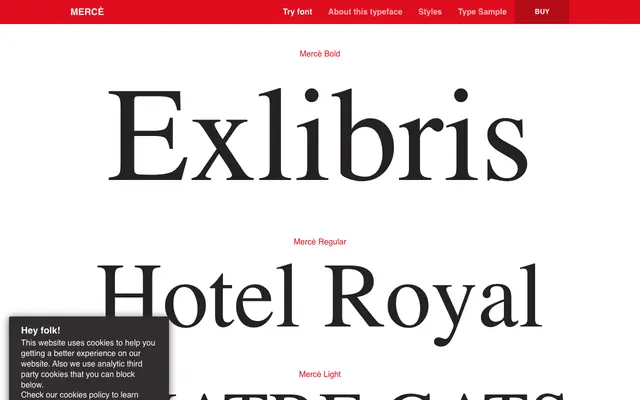
Mercè
Typerepublic · Ricard Garcia · 2023
A revival of Louis Hoell's 1914 Tages-Antiqua, reworked by Ricard Garcia with greater elegance and contrast while preserving its Art Nouveau proportions.
Originally cut for the Flinsch foundry in Offenbach am Main, Tages-Antiqua circulated in Barcelona as Antigua Mercedes and was rooted in the mainstream Art Nouveau styles of early 20th-century Europe. Garcia's revival retains the wide characters and uneven vertical proportions of Hoell's design while introducing a more contrasted, transitional feel across five weights from Light to Black. The family supports an extensive range of Latin-based languages and includes OpenType features such as historical forms, ordinals and slashed zero.
A revival of Louis Hoell's 1914 Tages-Antiqua, itself rooted in European Art Nouveau; features wide characters, uneven vertical proportions and increased stroke contrast in a transitional model.